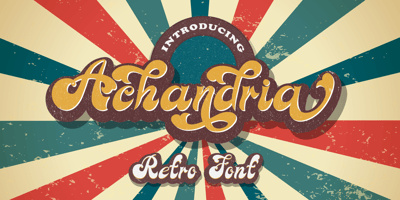
Achandria
Achandria font
Achandria Font Family was designed by Tio Yulianto and published by Javatypestd. Achandria contains 1 styles and family package options. Introducing Achandria A Retro Font Inspired from retro typography from the 80’s combine with bold typography style. Come with an open type feature with a lot of alternates and end swash, its helps you to make great lettering.Achandria best uses for Logotype, heading, cover, poster, logos, quotes, product packaging, header, merchandise, social media & greeting cards and many more.This font is also supports multi language.To access the alternate glyphs, you need a program that supports OpenType features such as Adobe Illustrator CS, Adobe Photoshop CC, Adobe Indesign and Corel Draw.What’s Included :- Standard glyphs- Ligature and Stylish Set- Works on PC & Mac- Simple installations- Accessible in Adobe Illustrator, Adobe Photoshop, Adobe InDesign, even work on Microsoft Word.- PUA Encoded Characters – Fully accessible without additional design software.- Fonts include multilingual supportThank you for your purchase!Hope you enjoy our font!